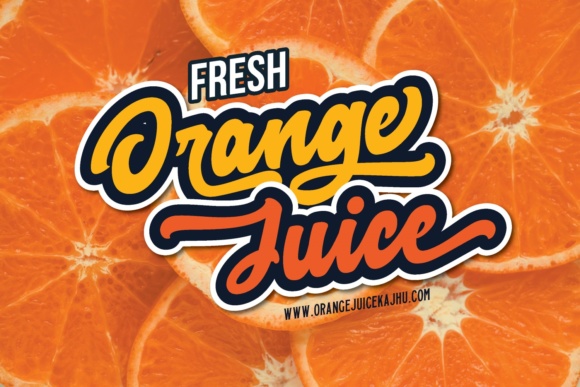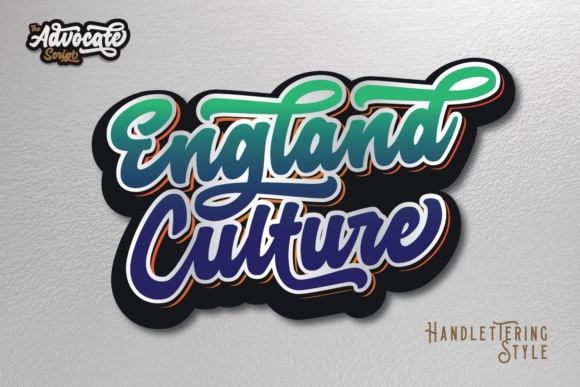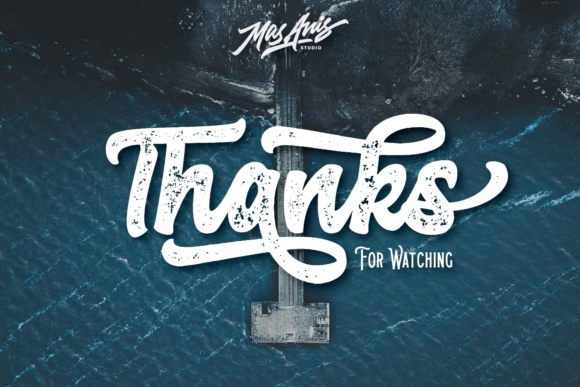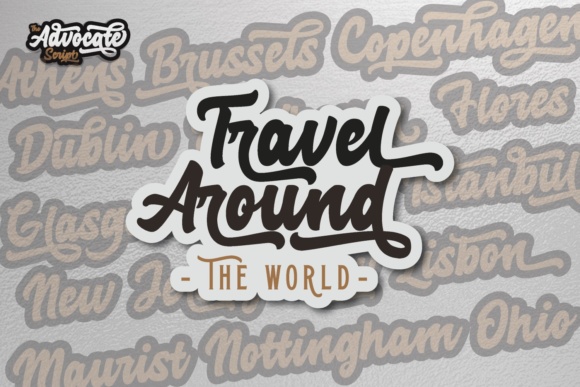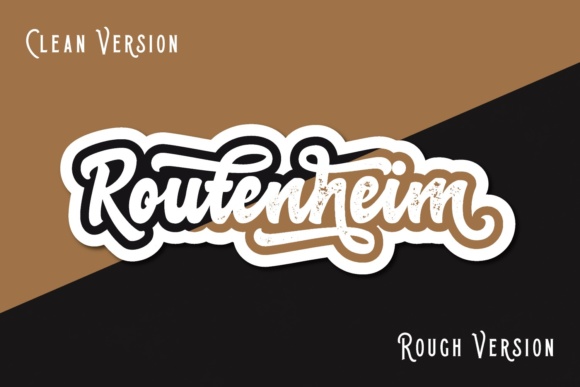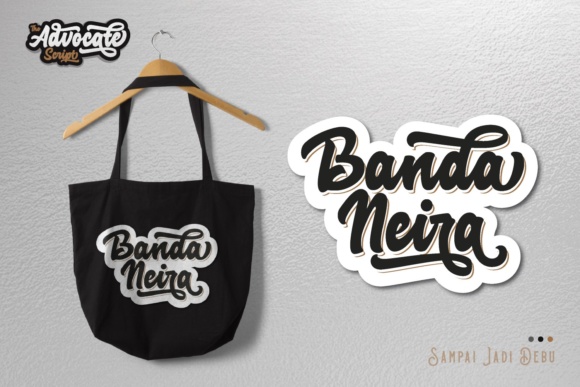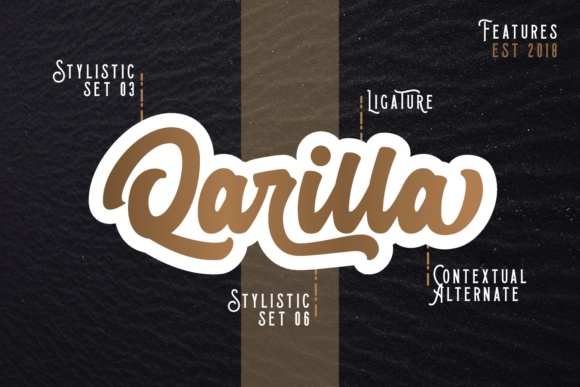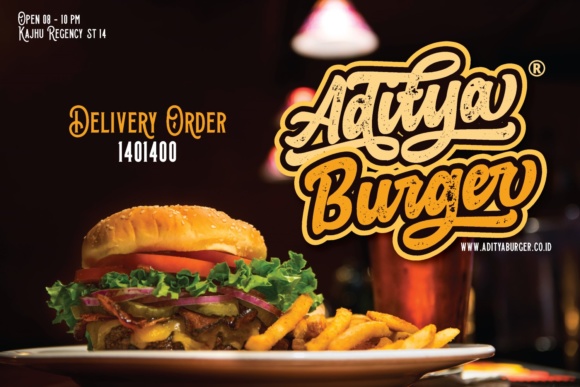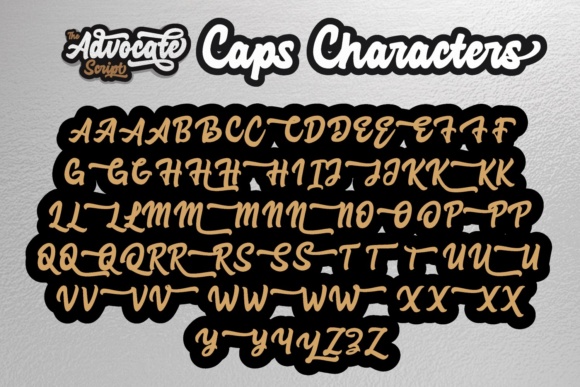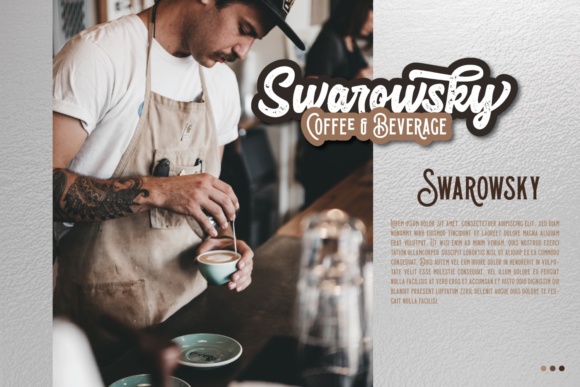
Advocate Script Font
About Advocate Script Font
Advocate is a brand new, simple, bold script with a classic, neat handlettering style, attractive swashes and alternates to make your designs work more easier. Ideal for logos, handwritten quotes, product packaging, headers, posters, merchandise, social media & greeting cards.
For everyone who wants to make an epic classic logo, Advocate also comes with a rough effect version which will make your logo have a more classic and simple fine feel. All glyphs are made by smooth touch to make every single curve look perfect.